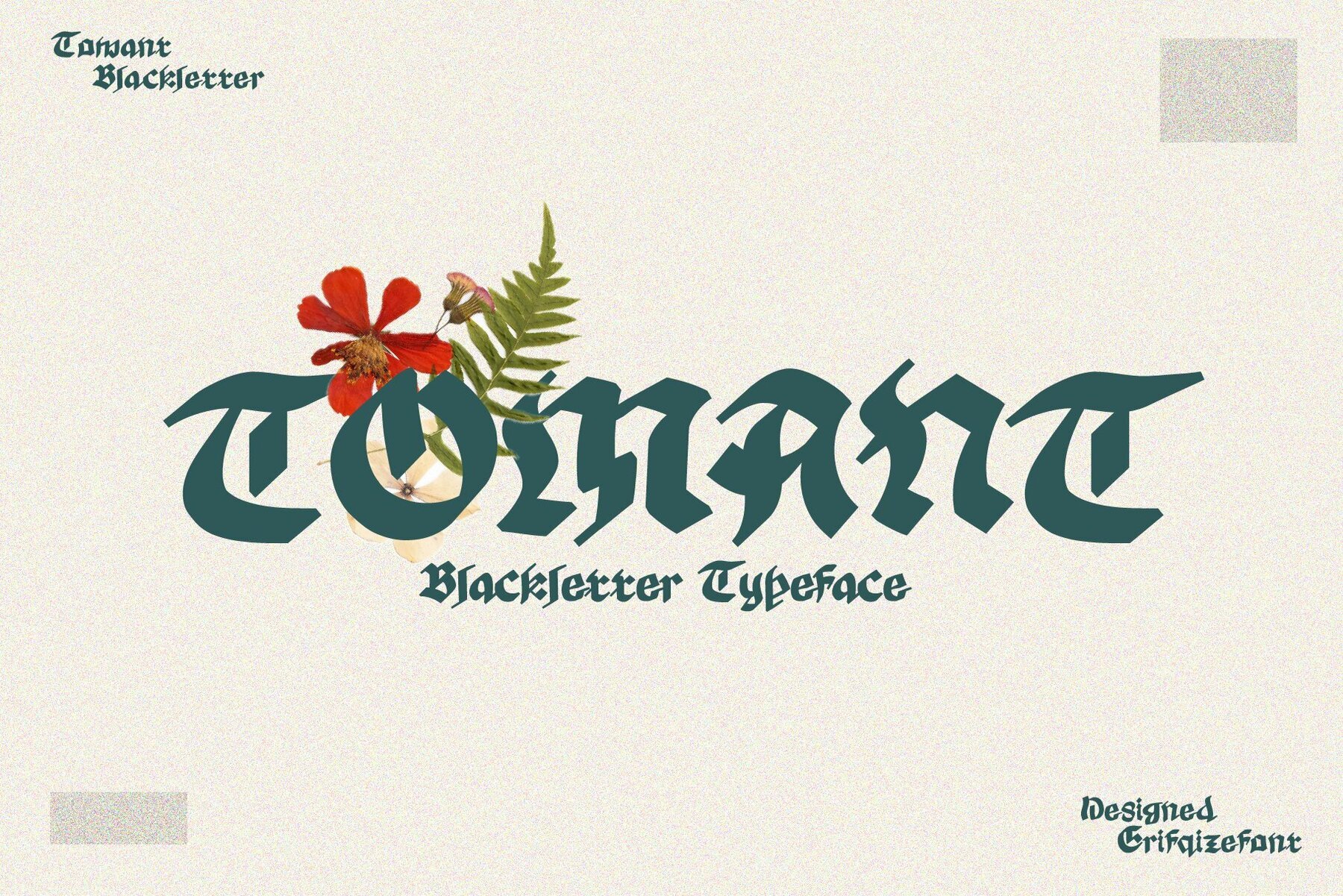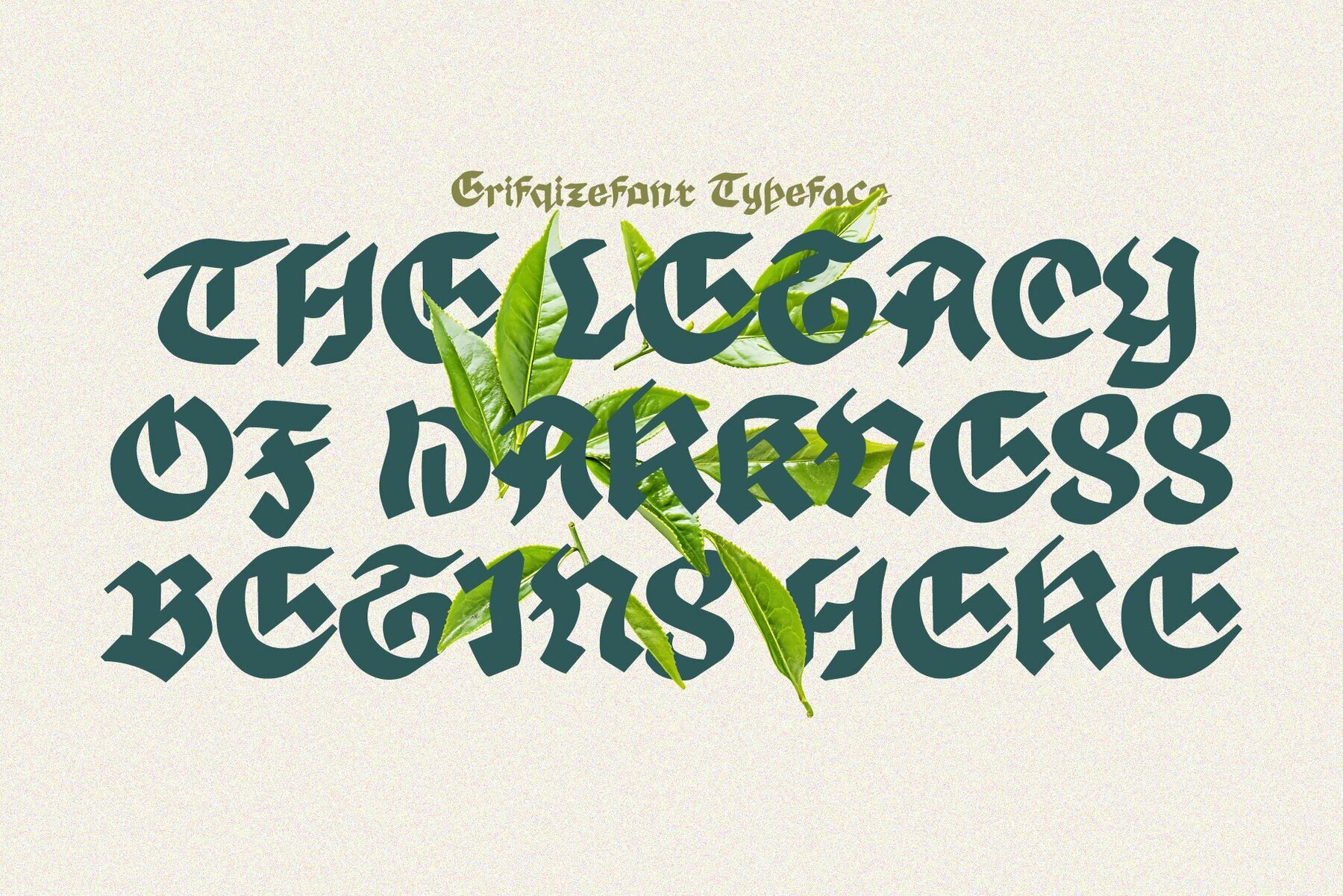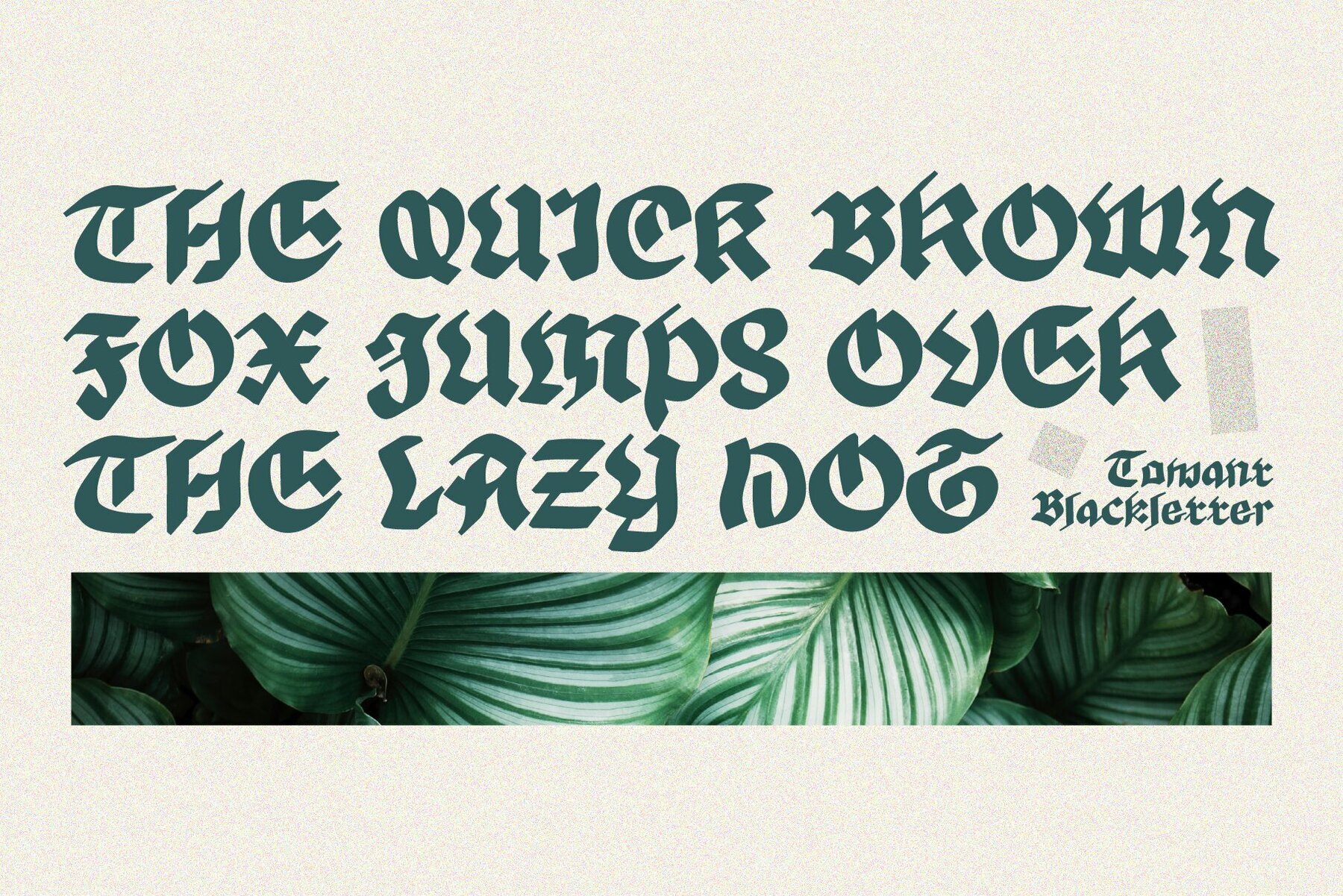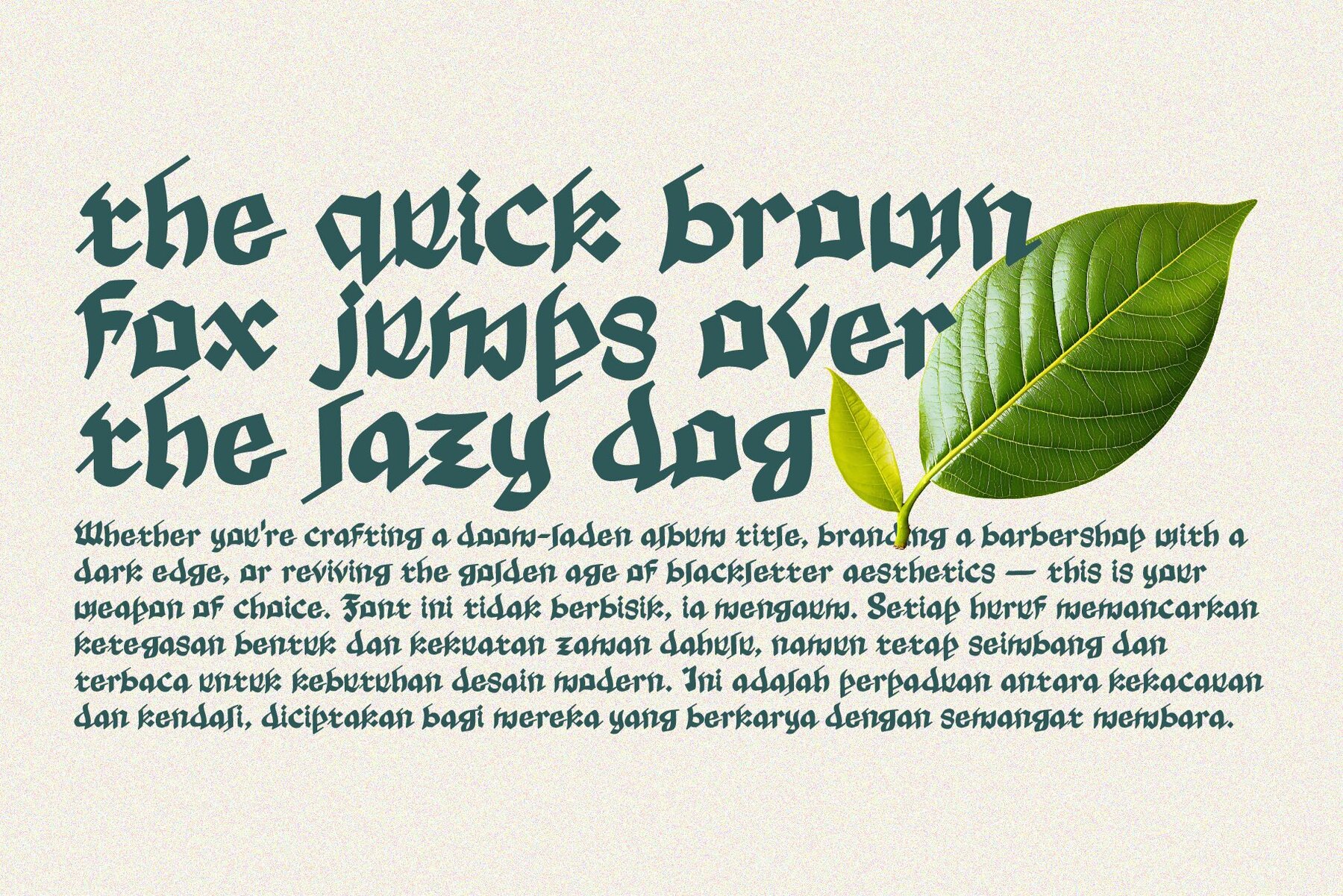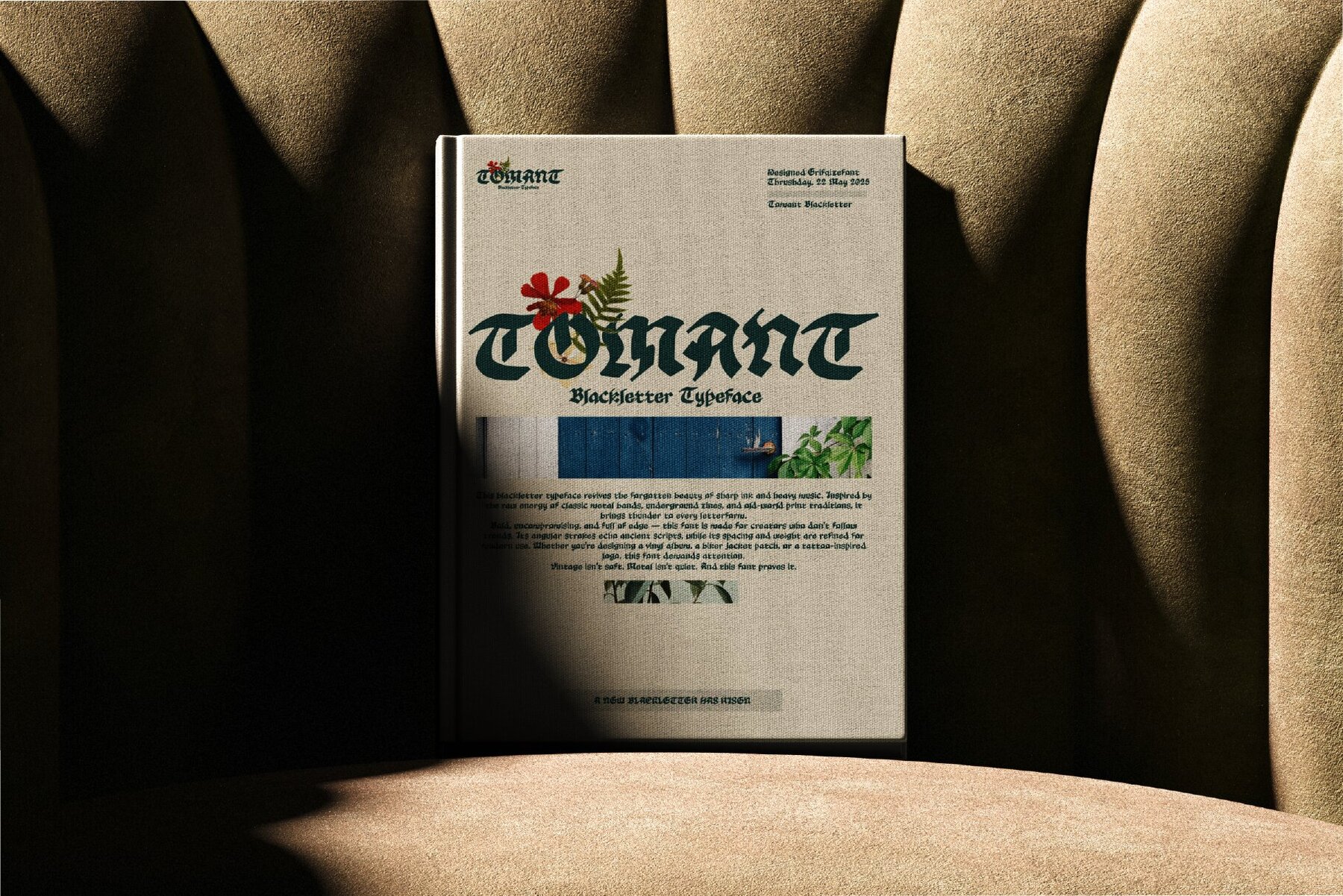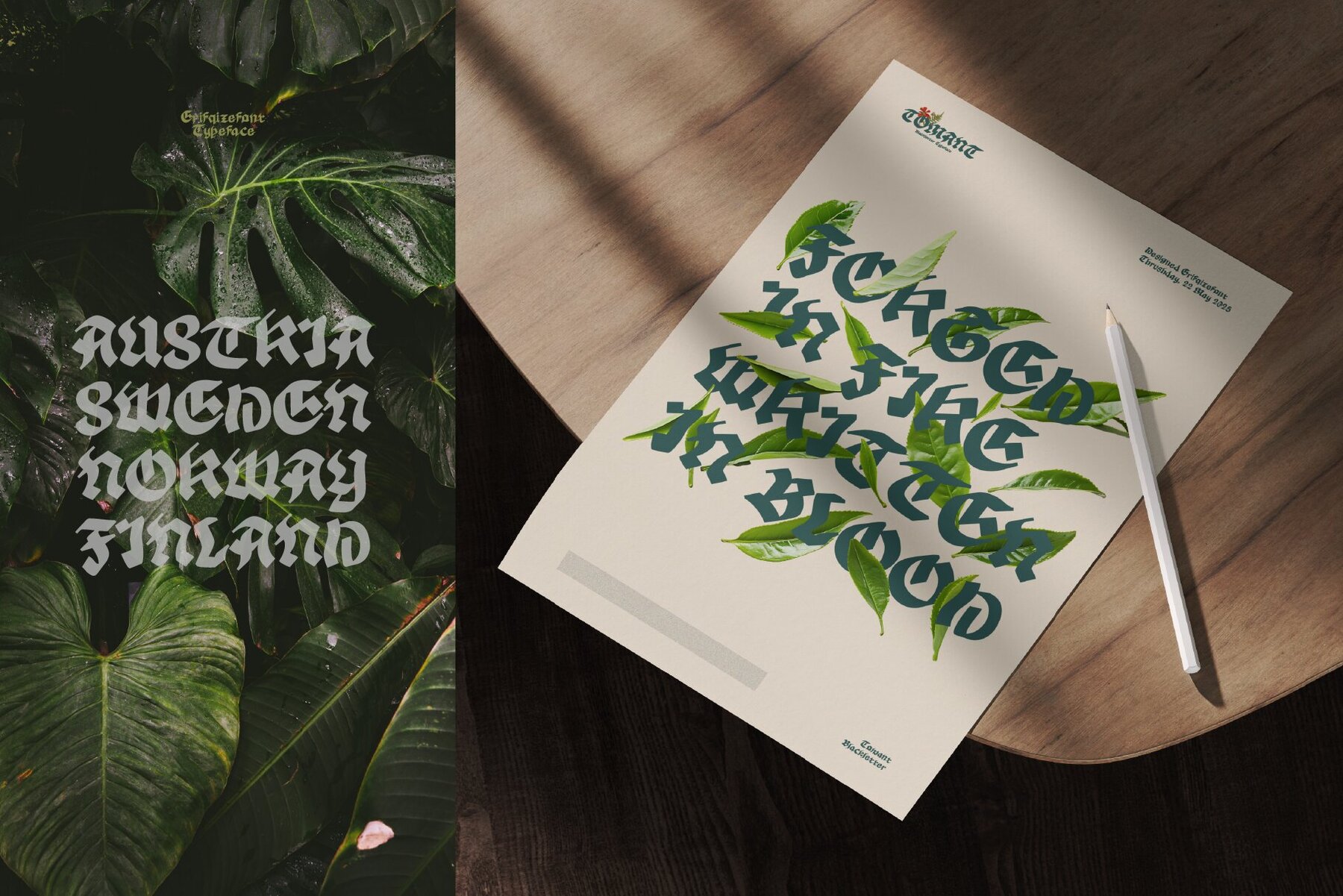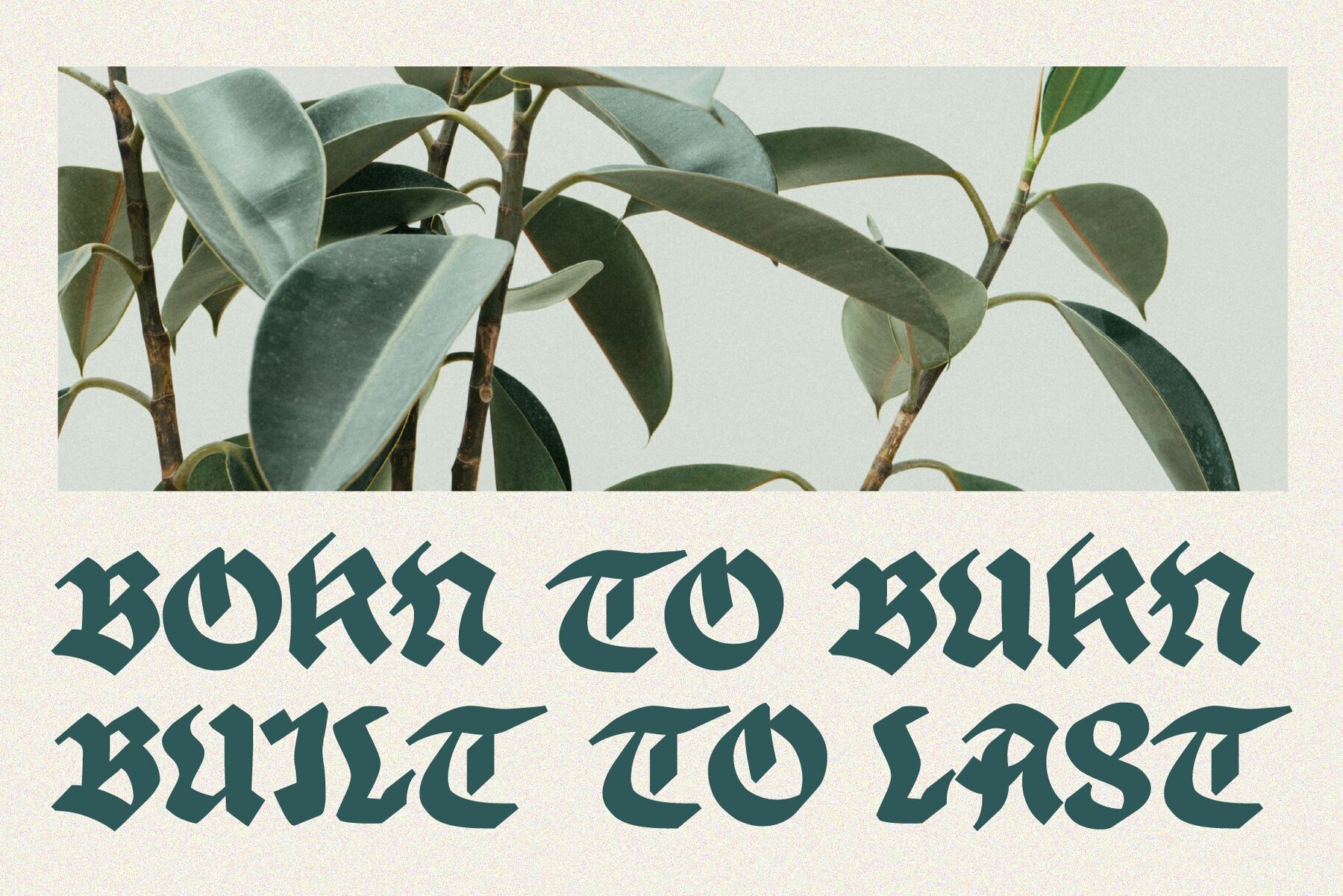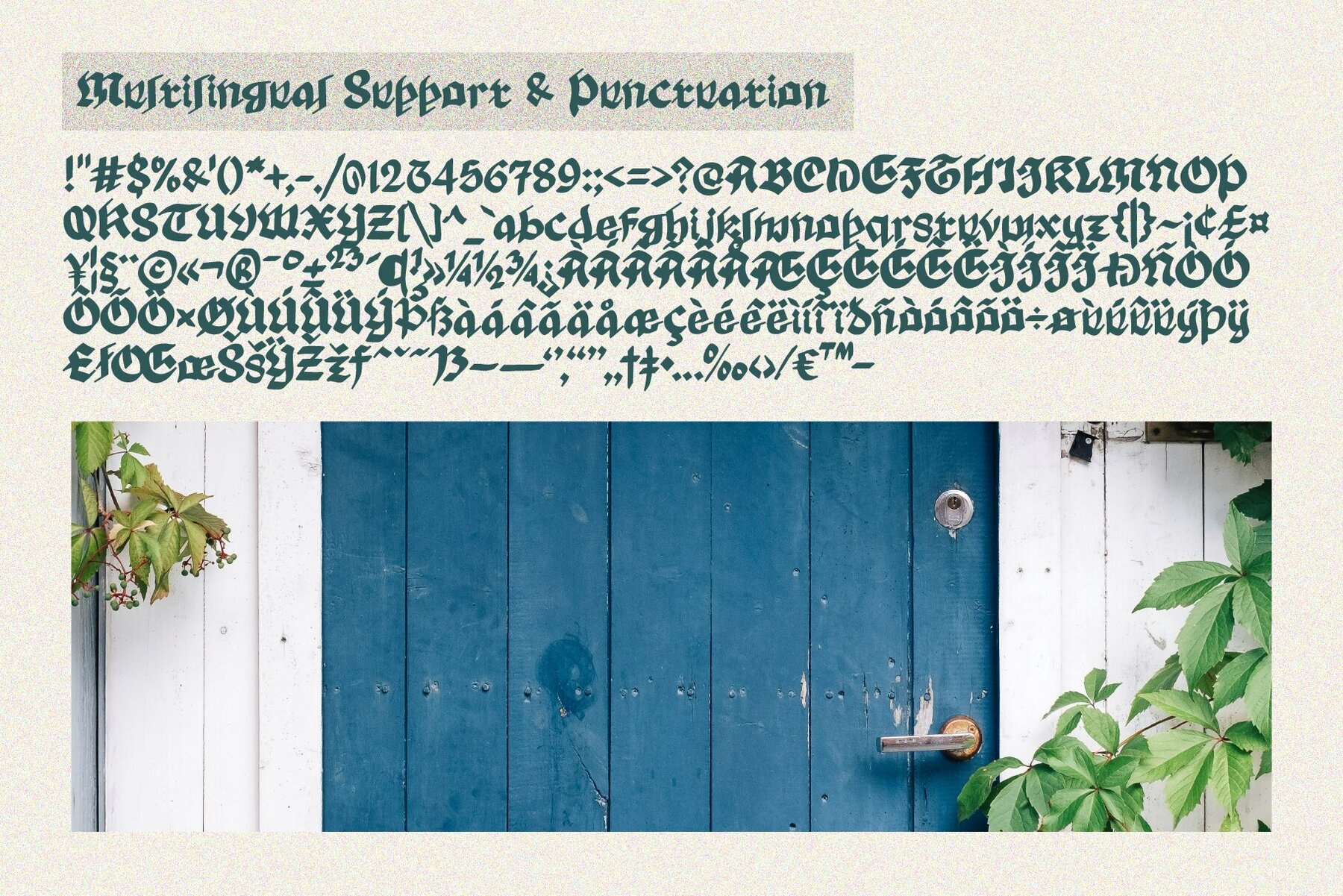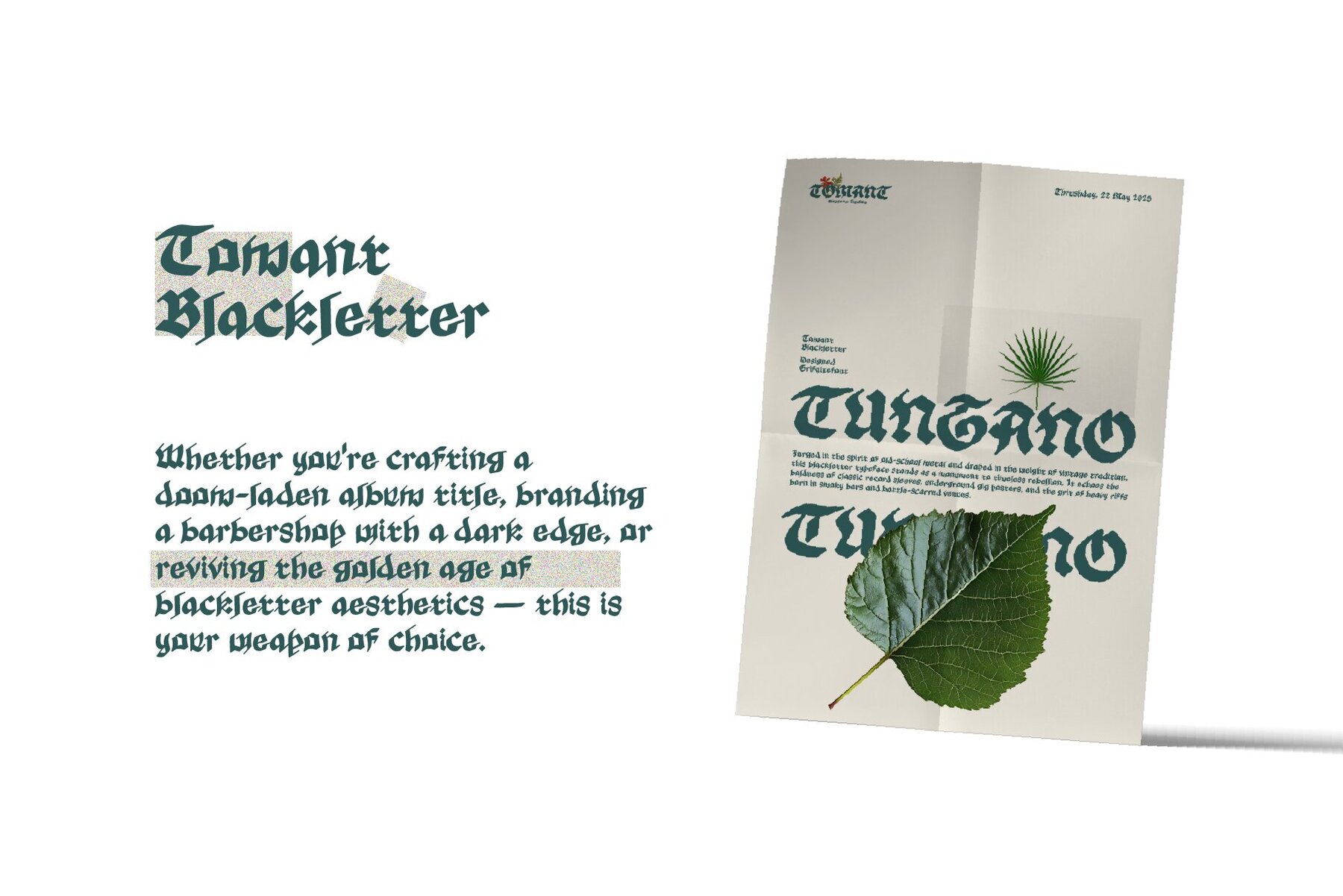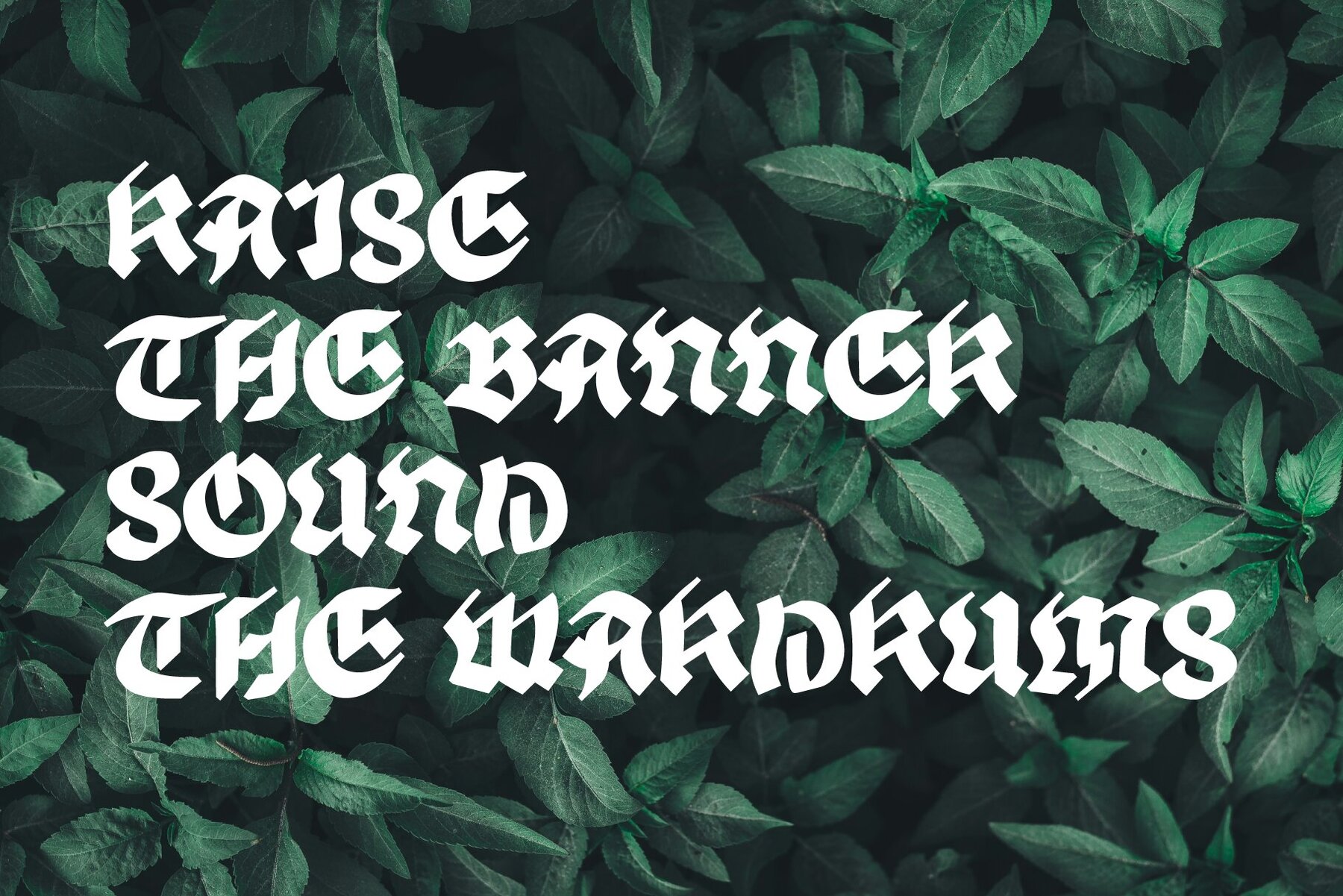
Tomant Font
Tomant Blackletter
Tomant Blackletter is a captivating typeface that merges the assertiveness of medieval letterforms with a subtle, natural grace. Designed with attention to detail, it combines the sharp, geometric elements of traditional blackletter with delicate floral accents, creating a unique visual experience. Each glyph possesses a robust structure and timeless rhythm, while maintaining a contemporary sophistication. Tomant is ideal for projects that demand an interplay of drama and refinement—from vintage metal posters to modern gothic branding. This typeface is not just a visual statement; it is a blackletter with a distinct spirit, crafted for designers who express with confidence.Tomant Blackletter: Elegance in Darkness